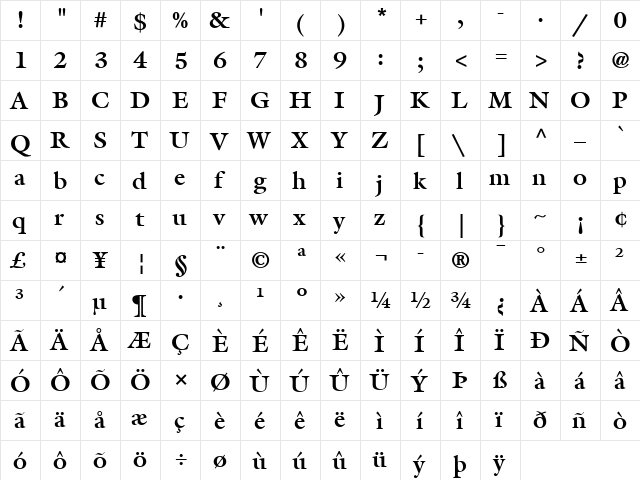
Galliard LT Bold Font Preview
Galliard LT Bold
Design Context for Galliard LT Typeface
Galliard LT takes a measured approach to typography — its balanced proportions and neutral character make it a reliable workhorse for both digital and print work. The heavy weight commands attention and anchors typographic hierarchies.
Pro Tip: Use Galliard LT in both headline and body roles to test its range before committing to a single application.